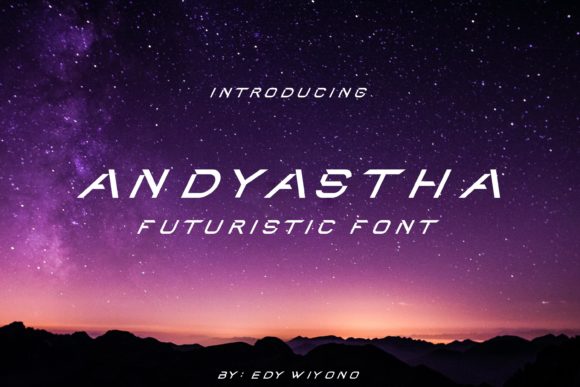
Step into the enchanting realm of Andyastha, a display font that casts a magical spell on your designs. Inspired by the beloved Harry Potter letters, it transports you to a world of whimsical wizardry and ethereal beauty.
With its crisp lines and striking curves, Andyastha exudes a modern and futuristic aesthetic. Its versatility knows no bounds, from captivating movie titles to enchanting book covers. Its bold presence commands attention in posters and flyers, inviting curious gazes to explore its mesmerizing depths.
Immerse yourself in the captivating allure of Andyastha. Its meticulously crafted characters evoke a sense of mystery and adventure, promising to ignite your imagination and leave an unforgettable impression. Whether you're a seasoned designer or a budding artist, Andyastha empowers you to unleash your creativity and cast a spellbinding charm on your creations.
Embrace the magic of Andyastha today and let its enchanting aura transform your designs into extraordinary works of art.